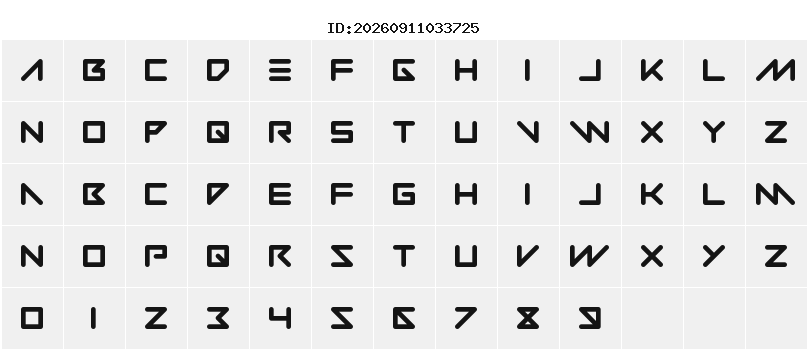
Vermin Vision Preview
• Font Name: Vermin Vision
• Full Font Name: Vermin Vision
About Vermin Vision.otf
Vermin Vision.otf is a modern, elegant sans-serif font designed for ultimate readability and visual harmony. Perfect for branding, headlines, web design, and print materials.